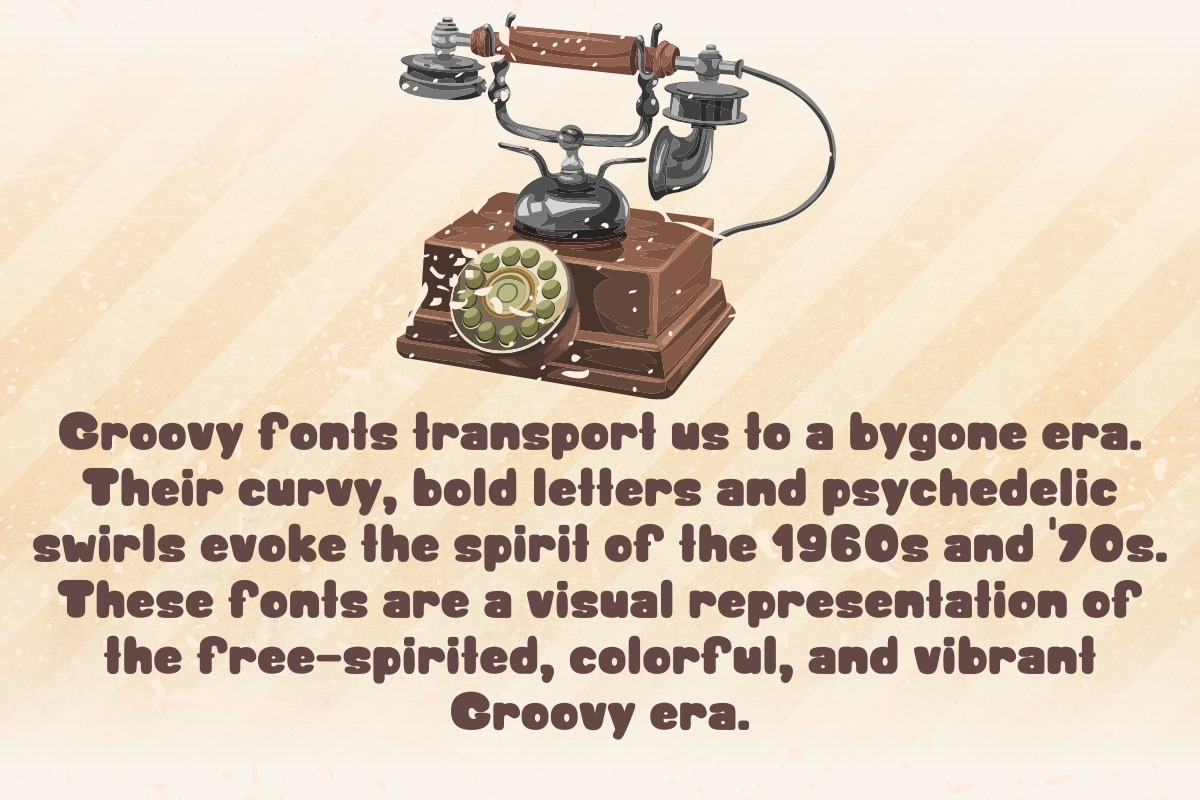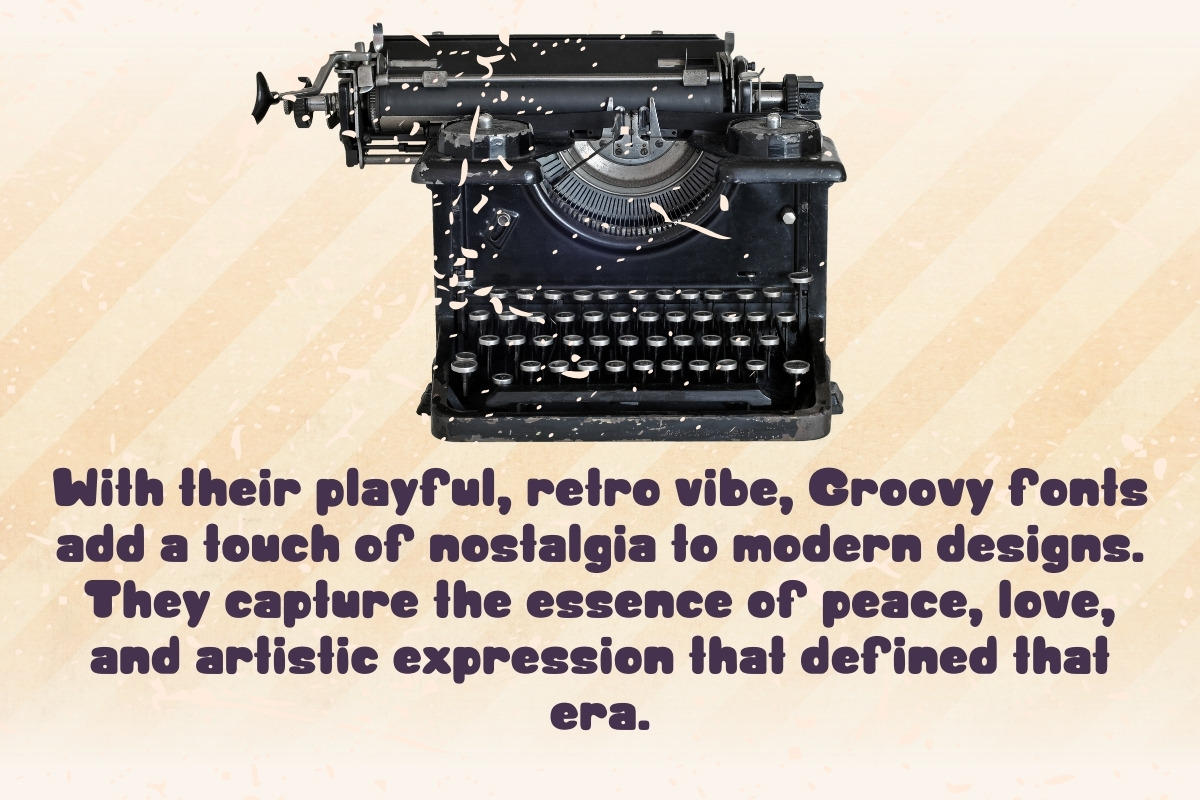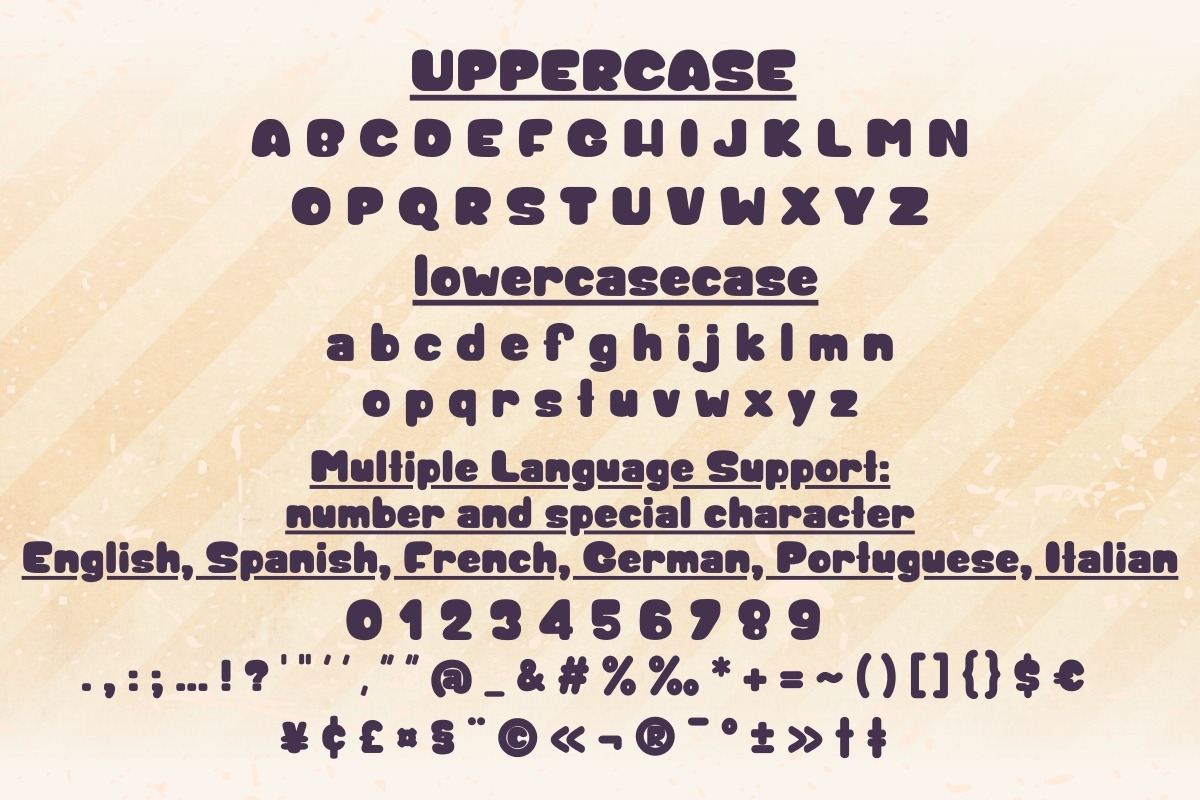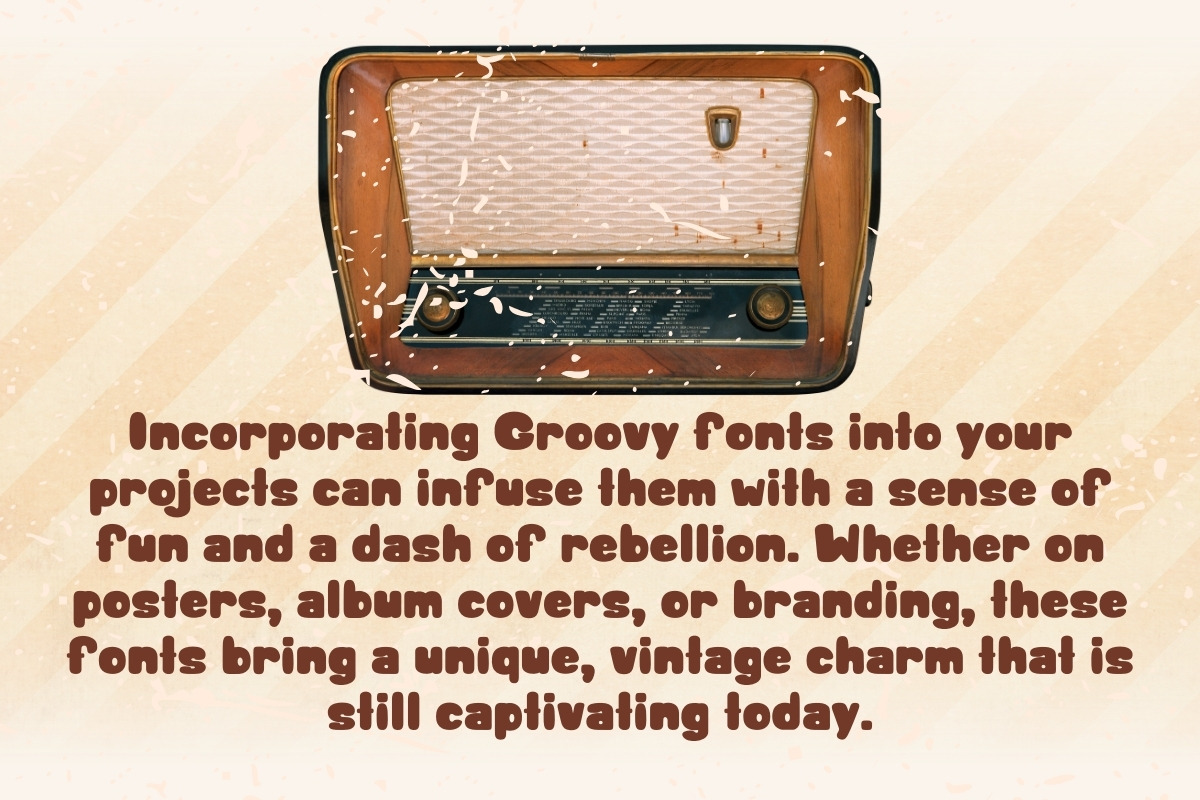
GROOVY STATION - Handwritten
Groovy Station font is a retro masterpiece. Its bold, funky letters transport you straight to the 1970s, evoking nostalgia for a vibrant era of disco, peace signs, and flower power.
This font captures the essence of Groovy, with its curvy lines and playful flair. It's perfect for adding a touch of vintage charm to posters, logos, or branding projects, infusing them with a sense of fun and creativity.